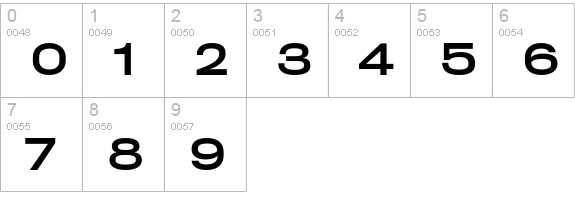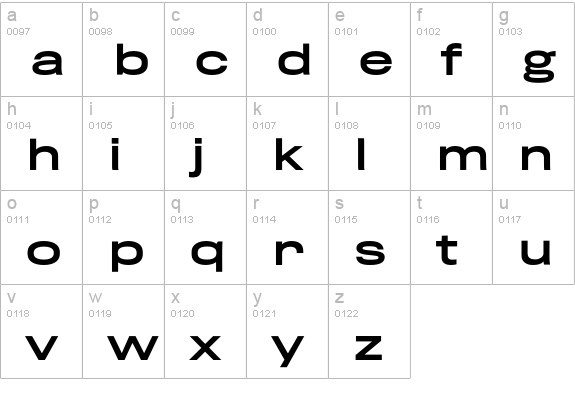
Rhode-MediumWide Font Details
Rhode-MediumWide is a modern and versatile font that effortlessly combines elegance with readability. With its medium weight and wide letterforms, this typeface exudes a sense of professionalism and confidence. Whether used in headlines, body text, or branding materials, Rhode-MediumWide adds a touch of sophistication to any design project. This font's clean lines and balanced proportions make it highly legible, even at smaller sizes. Its wide letterforms provide ample space for each character, ensuring clarity and ease of reading. The precise spacing and well-defined letter shapes contribute to a polished and refined look. Rhode-MediumWide is not only aesthetically pleasing but also incredibly practical. It is designed to be highly adaptable, making it suitable for a wide range of applications. Whether used for print or digital media, this font maintains its visual integrity and readability across various platforms. What sets Rhode-MediumWide apart is its versatility and accessibility. As a free font, it provides designers and creators with the opportunity to enhance their projects without any financial constraints. It is freely available to download at FontsMarket.com, making it easily accessible to anyone looking to elevate their design game. In conclusion, Rhode-MediumWide is a visually appealing and versatile font that effortlessly combines elegance with readability. Its clean lines, balanced proportions, and wide letterforms make it suitable for a variety of design projects. As a free font, it is a valuable resource for designers and creators, easily downloadable at FontsMarket.com. Add a touch of sophistication to your designs with Rhode-MediumWide.